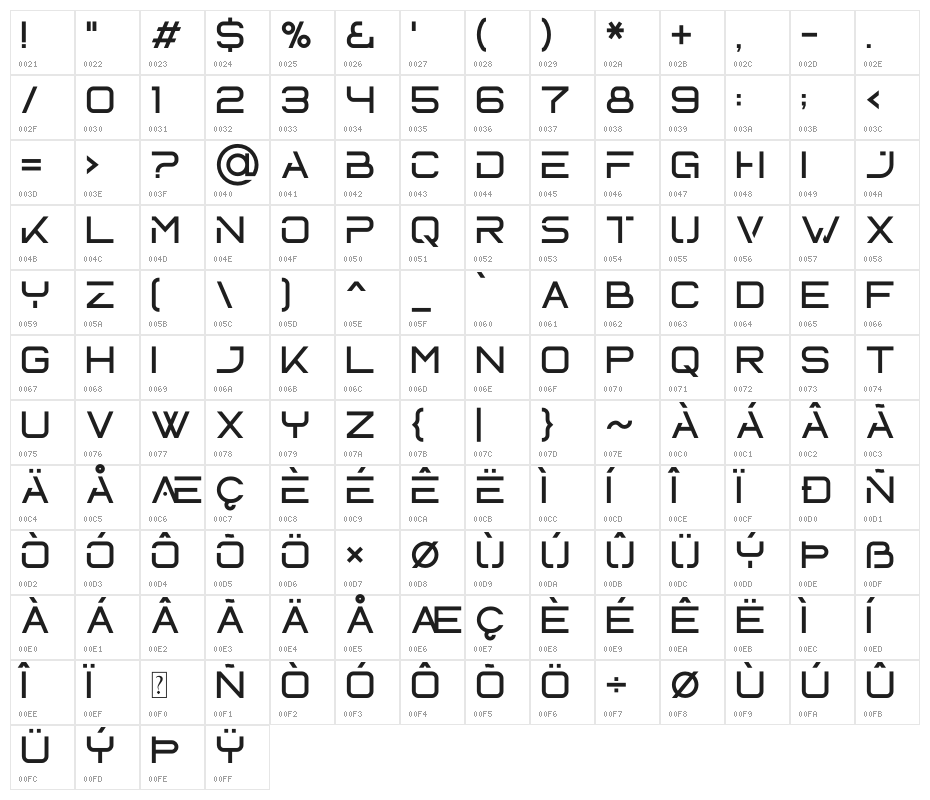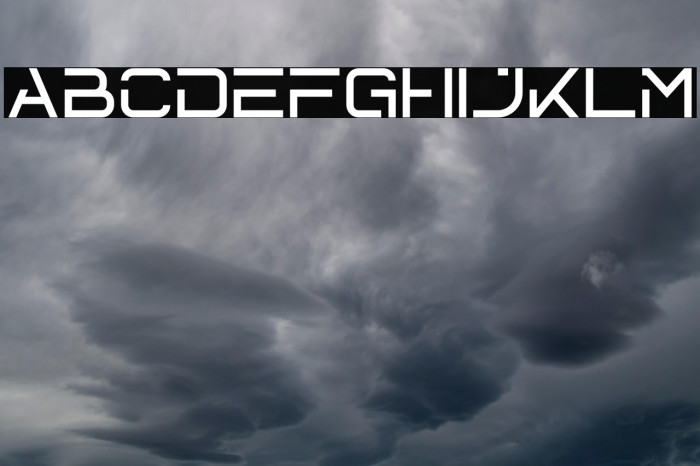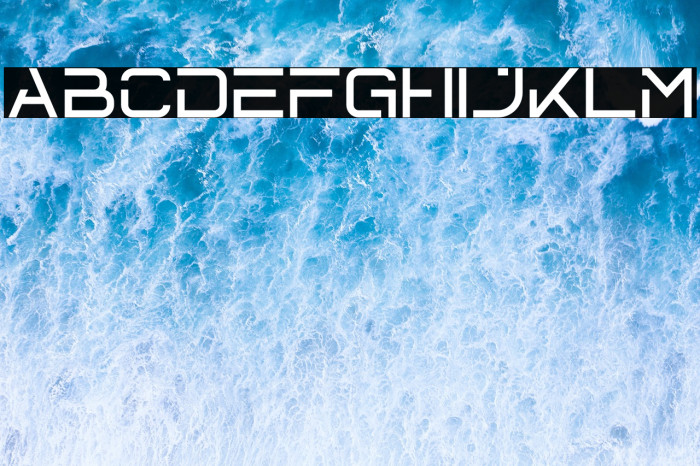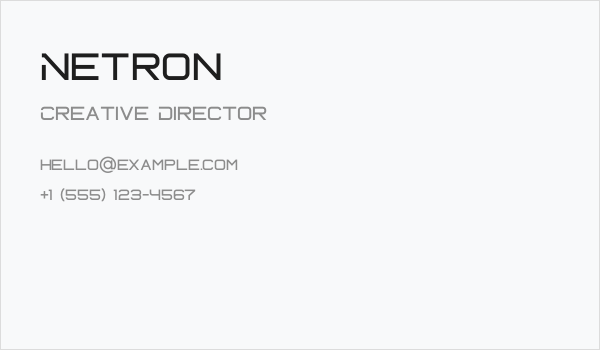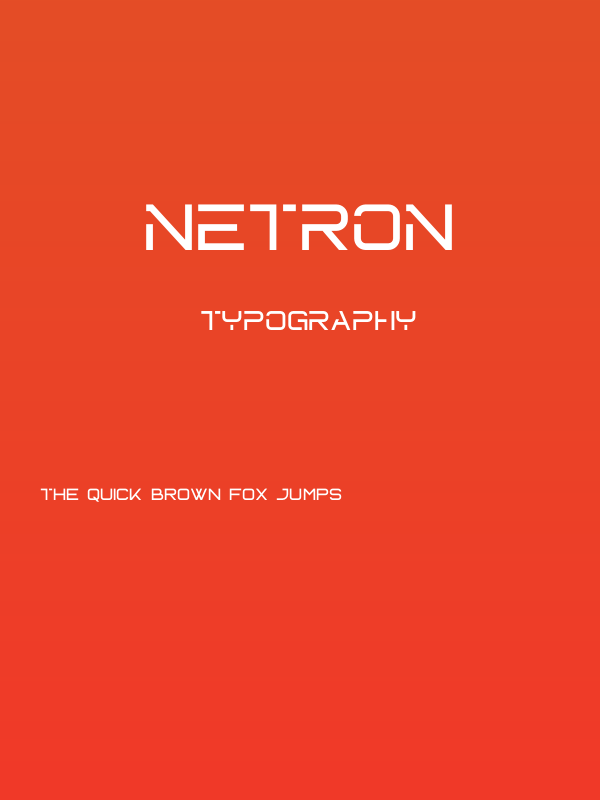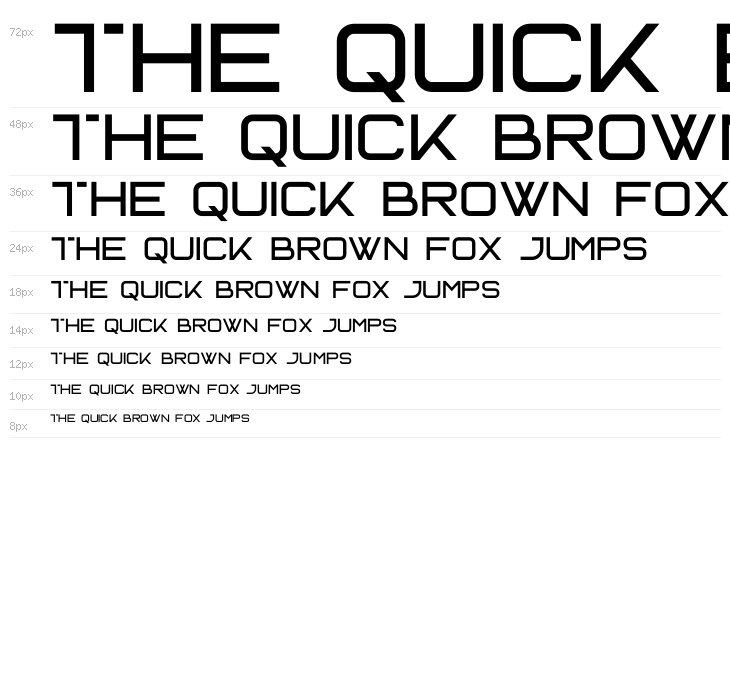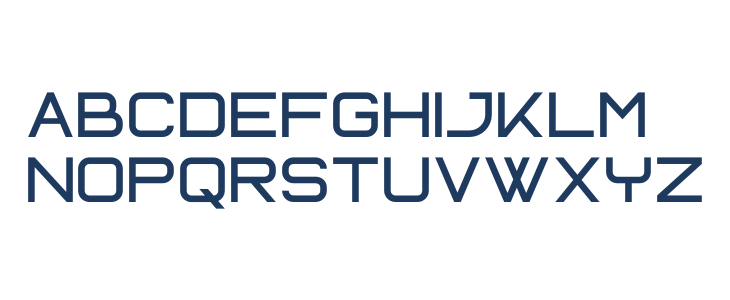
Netron Font
Netron Description
This font features a futuristic and geometric design, characterized by its sharp angles and clean lines. The uppercase letters are bold and structured, with a distinct angularity that gives them a modern, tech-inspired look. The lowercase letters maintain this geometric style, offering a cohesive appearance across the typeface. Numbers are similarly designed, with a uniform width that complements the overall aesthetic. Special characters are crafted with the same attention to angular detail, ensuring consistency throughout. The font's style is ideal for projects that require a sleek, contemporary feel.
| Proposed Projects | Ideal for technology branding, sci-fi movie posters, modern logos, and digital interfaces. |